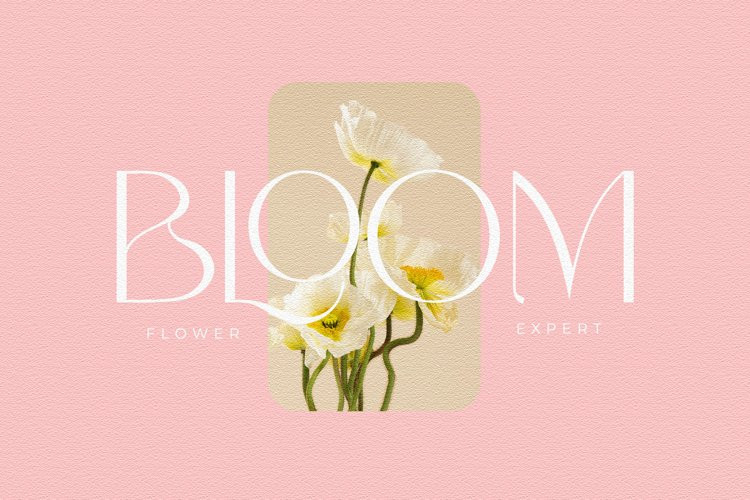
Adore Font
Adore FontAdore is modern sans serif font with thin style. This is all-caps, which means uppercase and lowercase are same.
Adore Sans Font is so suitable for your logo, wedding invitation, greeting card, branding, fashion, short quotes, and many more.